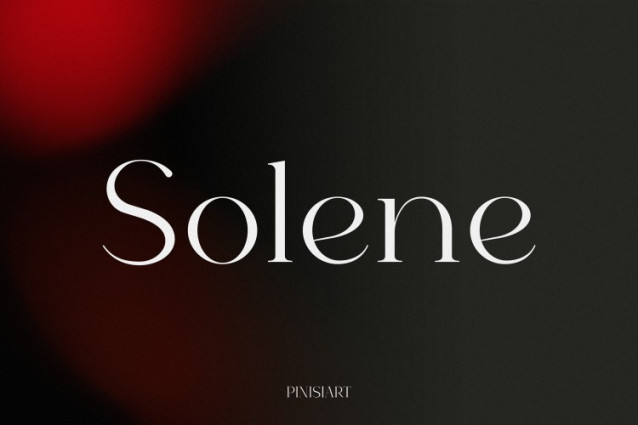
Solene Font
Solene Font is a refined and elegant serif font that captures attention with its quiet sophistication. What makes this font unique is its balance between modern simplicity and timeless luxury. The subtle curvature of each letterform, combined with its consistent spacing and harmonious proportions, gives Solene a distinctive voice. It doesn’t shout—it whispers with style. Whether used in branding, editorial layouts, or social media graphics, Solene enhances every word with a touch of class. Especially for Instagram, Solene stands out for its aesthetic that feels both polished and personal—perfect for making your content feel premium without being loud.
Solene comes with a full set of uppercase and lowercase characters, numerals, punctuation, and a well-crafted selection of ligatures and alternates. Its elegant thin strokes and precise contrast make it ideal for editorial designs, fashion brands, or creative portfolios. The font is also highly legible, even in smaller sizes, which makes it versatile for both digital and print use. From logos and business cards to product packaging and website headers, Solene can adapt seamlessly while maintaining a distinct visual identity.
More than just beautiful, Solene is functional. Its refined serif forms help convey professionalism and creativity in equal measure. The subtle flair of its italics and ligatures adds movement and expression without overwhelming the content. Whether you’re designing a brand for a boutique or styling text for a luxury skincare label, Solene sets the tone just right.